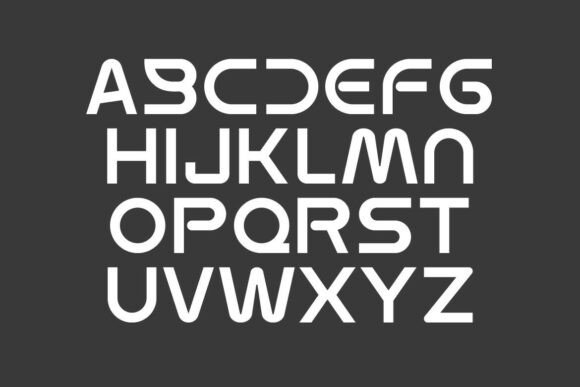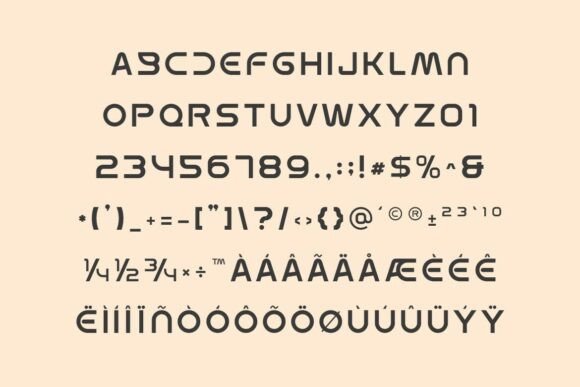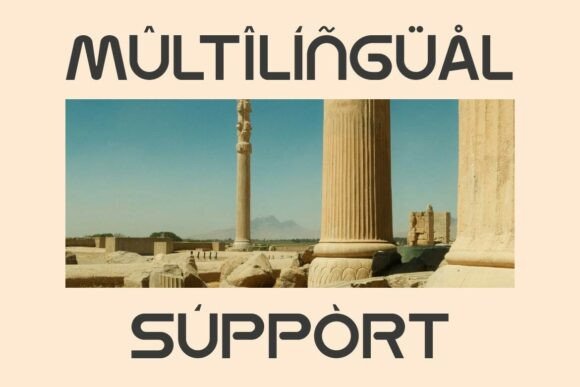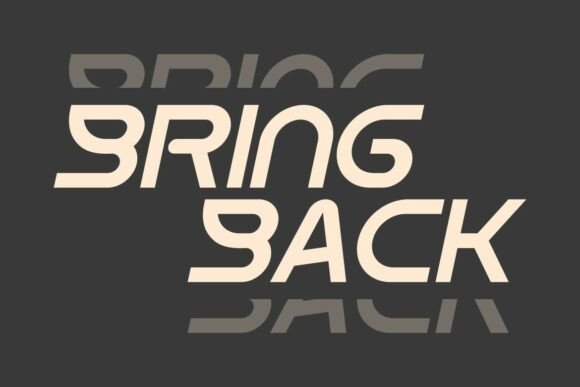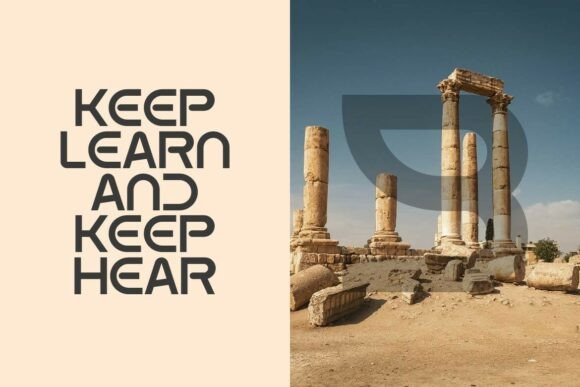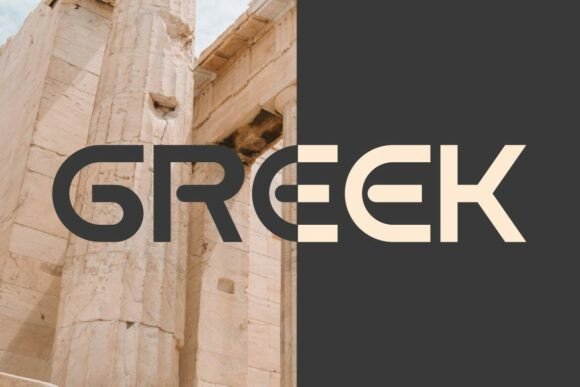
The Power of Typography: Unleashing the Potential of Broval Font
Have you ever stared at a blank page, waiting for inspiration to strike? The cursor blinks, and the pressure builds. Suddenly, the perfect idea hits – a bold, eye-catching headline that demands attention. That’s when you need a font that packs a punch, a font that makes a statement. Enter Broval Font, the powerful sans serif font designed to deliver strength and confidence to any design.
Perfect for designers looking to create impactful headlines, logos, posters, and modern branding, Broval Font is a valuable addition to any creative toolkit. With its thick strokes, sharp edges, and solid geometric structure, this font ensures your message stands out loud and clear, making it an essential choice for sports graphics, product packaging, and more.
Broval Font Key Features
- Font Family: Broval Font is a unique sans-serif font family designed for modern and minimalist designs.
- Character Count: The font family includes over 200 glyphs, covering a wide range of languages and characters.
- Font Size and Resolution: Designed for use at medium to large font sizes (10-48 points) and suitable for resolutions up to 300 DPI.
- Unique Characteristics: Broval Font features a clean and modern design with subtle rounded edges and a distinctive x-height, making it perfect for digital and print designs.
Designer Review: Broval Font
First off, I’d like to say that I was pleasantly surprised by the Broval Font. Here are a few things that I think it does well:
- ✨ High-quality typography: The font has a beautiful, modern aesthetic that’s perfect for a wide range of applications.
- ✨ Excellent legibility: The font is clear and easy to read, even at smaller sizes.
- ✨ Versatile: The Broval Font comes in a range of weights and styles, making it easy to use in different contexts.
- ⚠️ Limited language support: Unfortunately, the font doesn’t support as many languages as some other fonts on the market.
- ⚠️ Not ideal for small text: While the font is highly legible, it can start to look a bit rough at very small sizes.
Overall, I think the Broval Font is a solid choice for designers who need a high-quality, modern font. It’s not perfect, but it’s a great option for a wide range of applications. With a bit of tweaking and experimentation, I think it can really shine.
Tips for Getting the Most Out of Broval Font
To get the most out of the Broval Font, use it for:
- Headings and titles.
- Emphasizing important text.
- Creating a unique and modern design aesthetic.
The Broval Font is commonly used in:
- Graphic design and branding.
- Advertising and marketing materials.
- Web design and development.